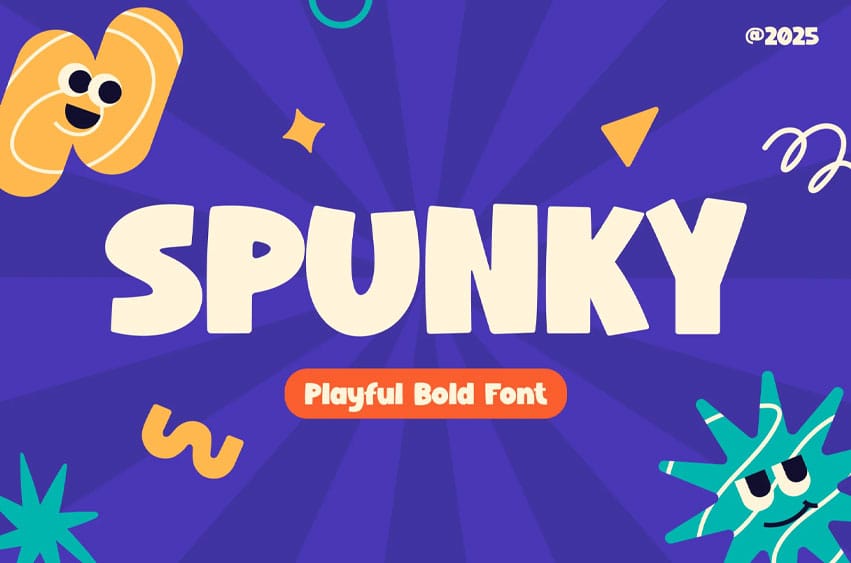
Spunky Font is a playful bold typeface crafted for designers seeking a kid-friendly display font with rounded proportions and a bouncy baseline. This long-tail-style display type delivers a fun, expressive vibe that works beautifully across education posters, kids events, playful branding, and any project needing joyful visual energy. Its geometric curves, chunky forms, and friendly letter shapes offer a warm personality that instantly attracts attention in Instagram visuals, school campaigns, youth programs, and modern social media layouts.
SPUNKY’s letterforms feel lively and approachable—perfect for cheerful messaging, colorful packaging, and fun print materials where expressive shapes help create emotional connection.
Designed for branding, kids books, posters, editorial layouts, playful packaging, and social media storytelling, SPUNKY brings a bright and uplifting tone to any visual environment. Its bold weight and animated character style help brands communicate friendliness, positivity, and excitement—ideal for designers who want to create attention-grabbing headlines, engaging children’s content, or expressive layouts with clear emotional appeal.
Whether you’re building a vibrant kids playground poster or crafting joyful product promotions, SPUNKY gives your project an immediate spark of personality.
Key Features : ✔ Bold, Cheerful Display Personality
- Rounded edges, lively curves, and expressive shapes for a naturally fun look.
✔ Built for Kid-Friendly Branding
- Perfect for children’s products, education, playground promo, youth events, and joyful advertising.
✔ Strong Visual Weight
- Reads clearly in posters, thumbnails, banners, packaging, and digital interfaces.
✔ Enhances Emotional Messaging
- Creates a happy, engaging tone ideal for playful storytelling and positive-energy layouts.
✔ Designer-Centric Usability
- Smooth shapes, clean structure, and balanced proportions that work across print and digital.
Bring cheerful energy into your next project with SPUNKY. Create fun stories, friendly visuals, and bright moments with a typeface designed for smiles.